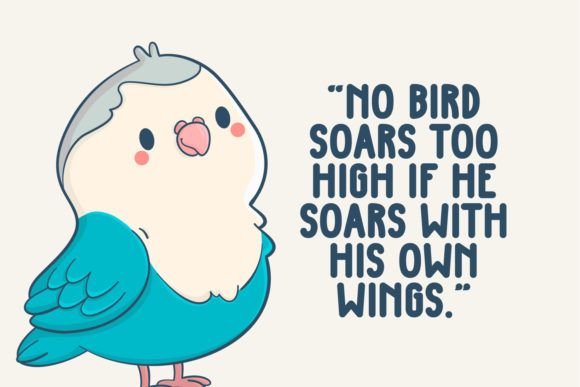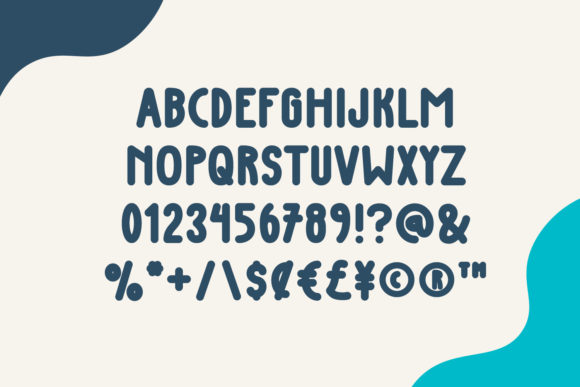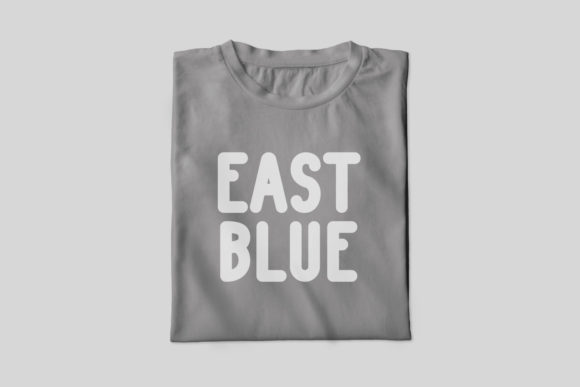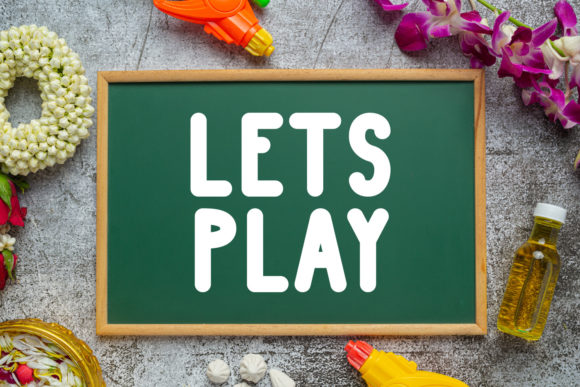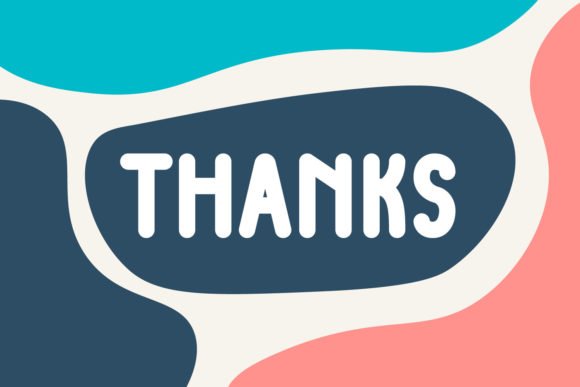
Introducing Blue Bird Font: The Cool and Friendly Display Font You Need
Are you tired of using the same old fonts in your designs? Do you want to add a touch of whimsy and quirkiness to your projects? Look no further than Blue Bird Font, a cool and friendly display font that’s sure to brighten up each of your designs. In this article, we’ll take a closer look at Blue Bird Font, its features, and how you can use it to take your designs to the next level.
What is Blue Bird Font?
Blue Bird Font is a display font that’s perfect for designers and crafters who want to add a playful touch to their projects. This font is whimsical, quirky, and fun, making it ideal for a wide range of designs, from posters and flyers to social media graphics and website headers. With its unique and eye-catching design, Blue Bird Font is sure to make your designs stand out from the crowd.
Features of Blue Bird Font
So, what makes Blue Bird Font so special? Here are just a few of its key features:
- Cool and Friendly Design: Blue Bird Font has a cool and friendly design that’s perfect for designers who want to add a touch of personality to their projects.
- Whimsical and Quirky: This font is whimsical and quirky, making it ideal for designers who want to add a playful touch to their designs.
- High-Quality Design: Blue Bird Font is designed with high-quality craftsmanship in mind, ensuring that it looks great in any design.
- Easy to Read: Despite its quirky design, Blue Bird Font is easy to read, making it perfect for use in a wide range of designs.
How to Use Blue Bird Font
So, how can you use Blue Bird Font in your designs? Here are just a few ideas to get you started:
- Posters and Flyers: Use Blue Bird Font to create eye-catching posters and flyers that are sure to grab attention.
- Social Media Graphics: Add a touch of personality to your social media graphics with Blue Bird Font.
- Website Headers: Use Blue Bird Font to create a unique and eye-catching website header that sets the tone for your brand.
- Crafting Projects: Blue Bird Font is also perfect for crafters who want to add a personal touch to their projects, such as scrapbooking and card making.
Why Choose Blue Bird Font?
So, why should you choose Blue Bird Font for your designs? Here are just a few reasons:
- Unique Design: Blue Bird Font has a unique and eye-catching design that’s sure to make your designs stand out.
- High-Quality Craftsmanship: Blue Bird Font is designed with high-quality craftsmanship in mind, ensuring that it looks great in any design.
In conclusion, Blue Bird Font is a cool and friendly display font that’s perfect for designers and crafters who want to add a touch of whimsy and quirkiness to their projects. With its unique and eye-catching design, high-quality craftsmanship, and ease of use, Blue Bird Font is sure to brighten up each of your designs. So why wait? Download Blue Bird Font today and see the difference it can make in your designs!